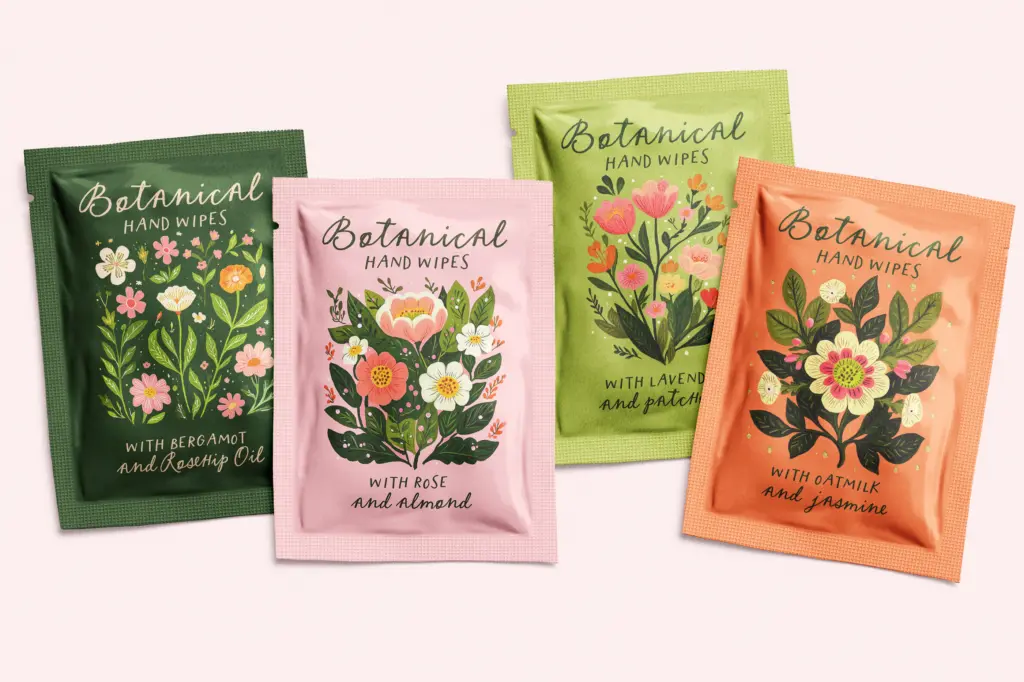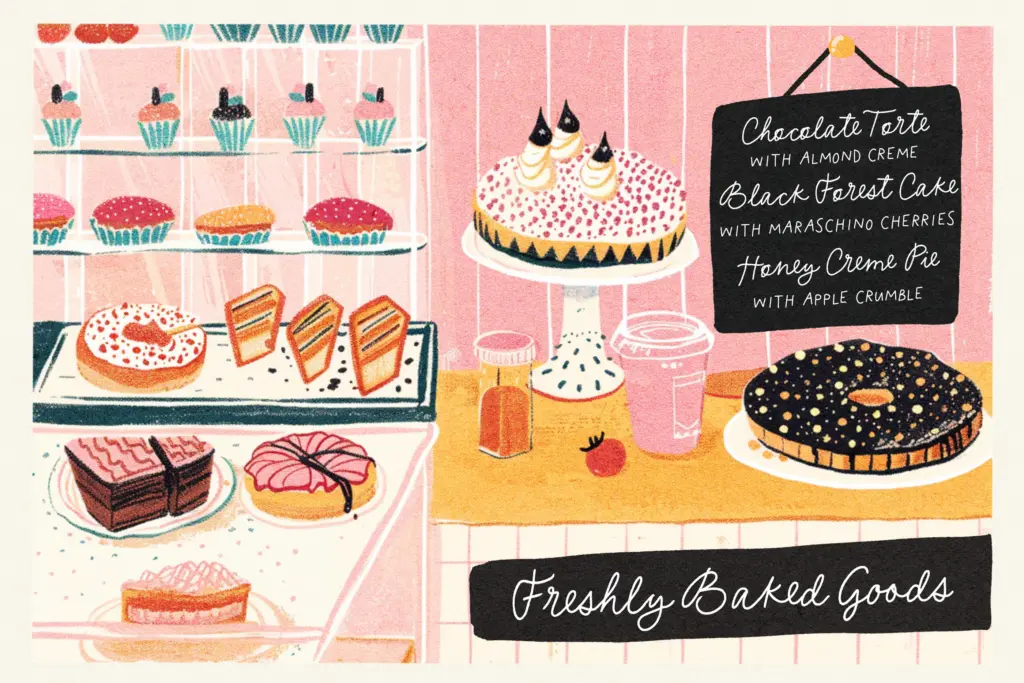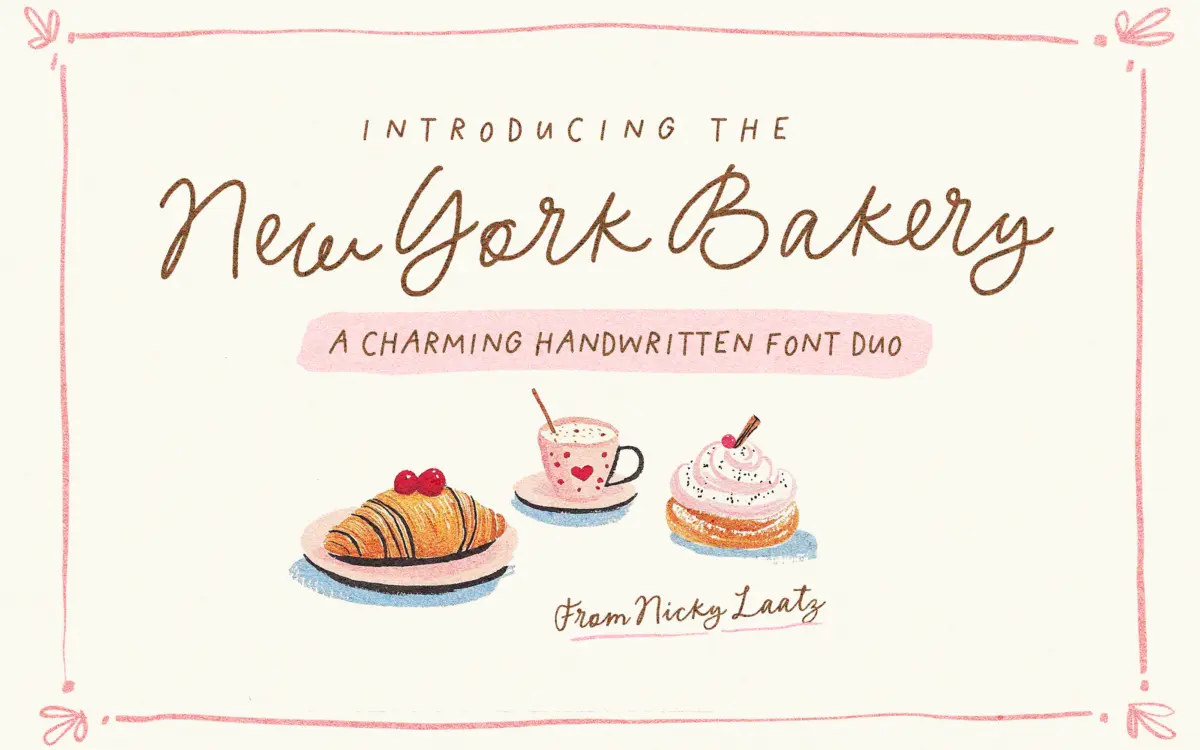
New York Bakery is a two-part set built from a loose, unhurried hand: a lowercase script with visible pen drag, and a matching all-caps companion for support text. The script isn’t polished calligraphy — it leans into slight wobble, uneven baselines and rounded terminals that read as friendly rather than formal. It sits closer to marker lettering than to a pointed-nib script, which is the point: it wants to look drawn, not engineered.
The caps are the quieter half. They’re boxy, a little irregular, and clearly meant to sit underneath the script rather than compete with it — think ingredient labels or a subhead under a hand-lettered logotype. Together they read as a cohesive pairing rather than two fonts thrown into the same file, which is more than can be said for a lot of duos in this category.
The duo comes with more weight range than most handwritten scripts bother with. The script ships in four weights — Regular, Medium, Scribe and Scribe Thick — with the Scribe variants pushing toward a calligraphic feel and heavier ink traps. Each of those has an oblique companion, which is a nice inclusion for a script face; it gives you a way to vary emphasis without switching families. The caps come in five weights, from a light Regular up to Thick, so pairing options within the set alone are fairly generous.
OpenType alternates and ligatures are where the script earns its